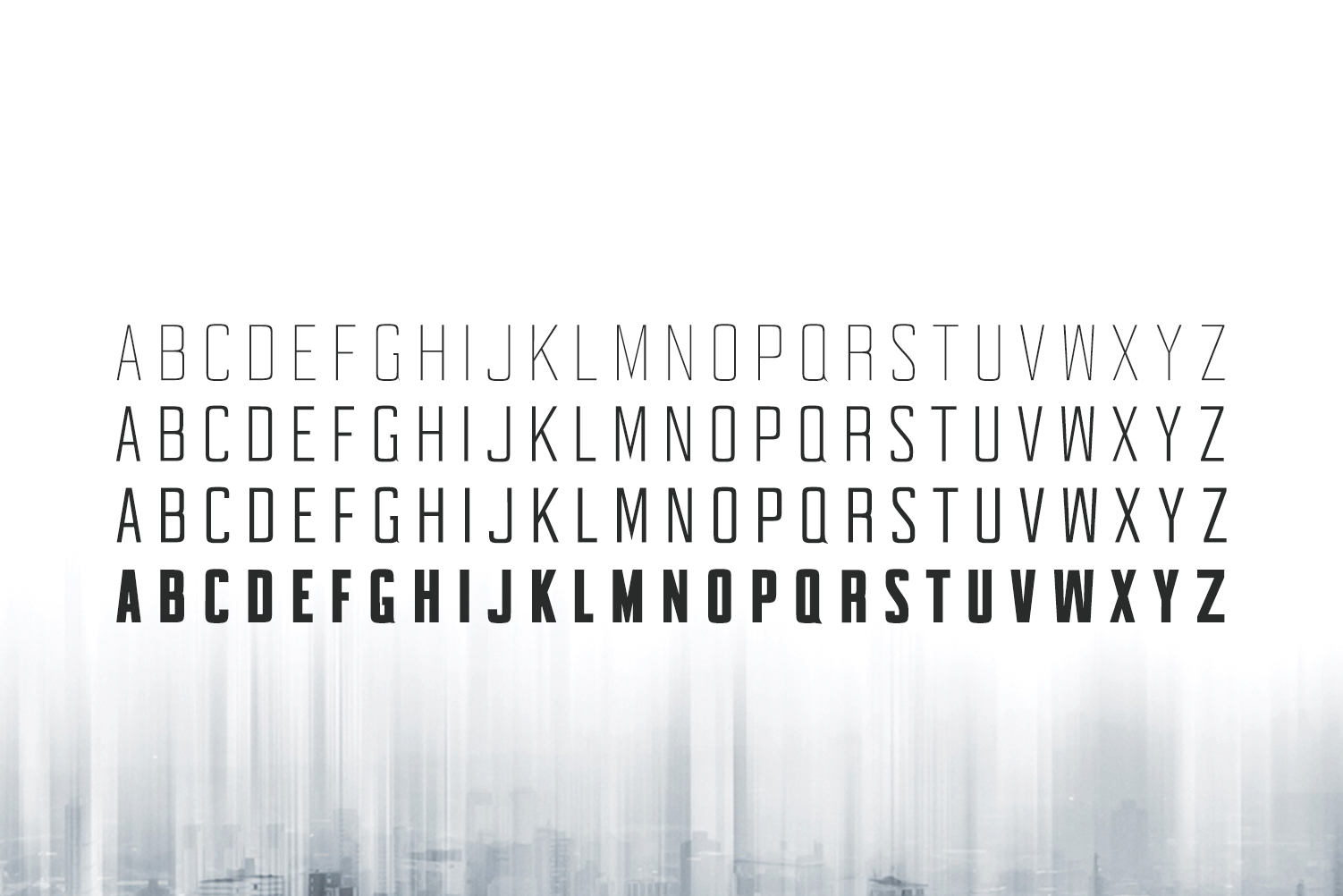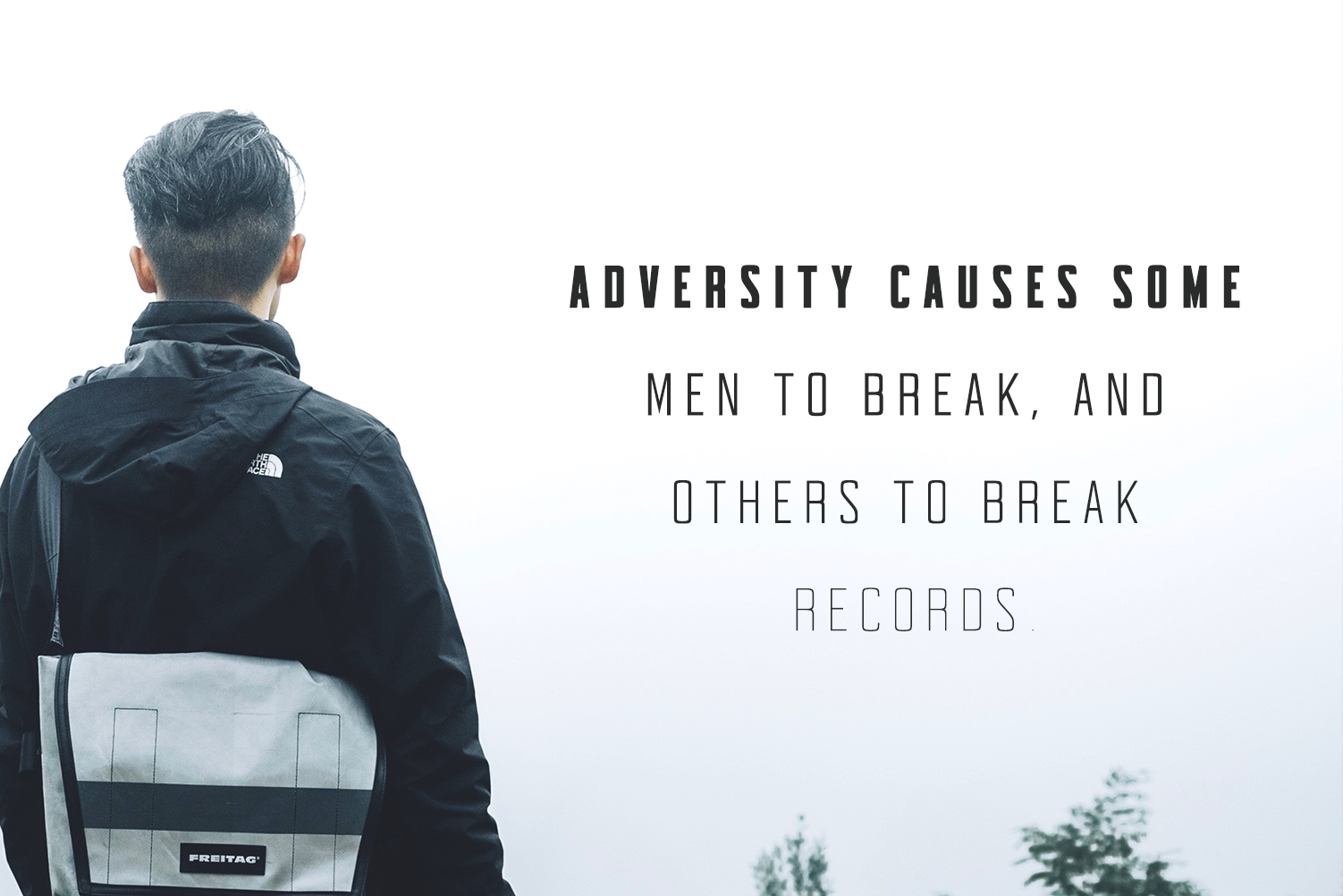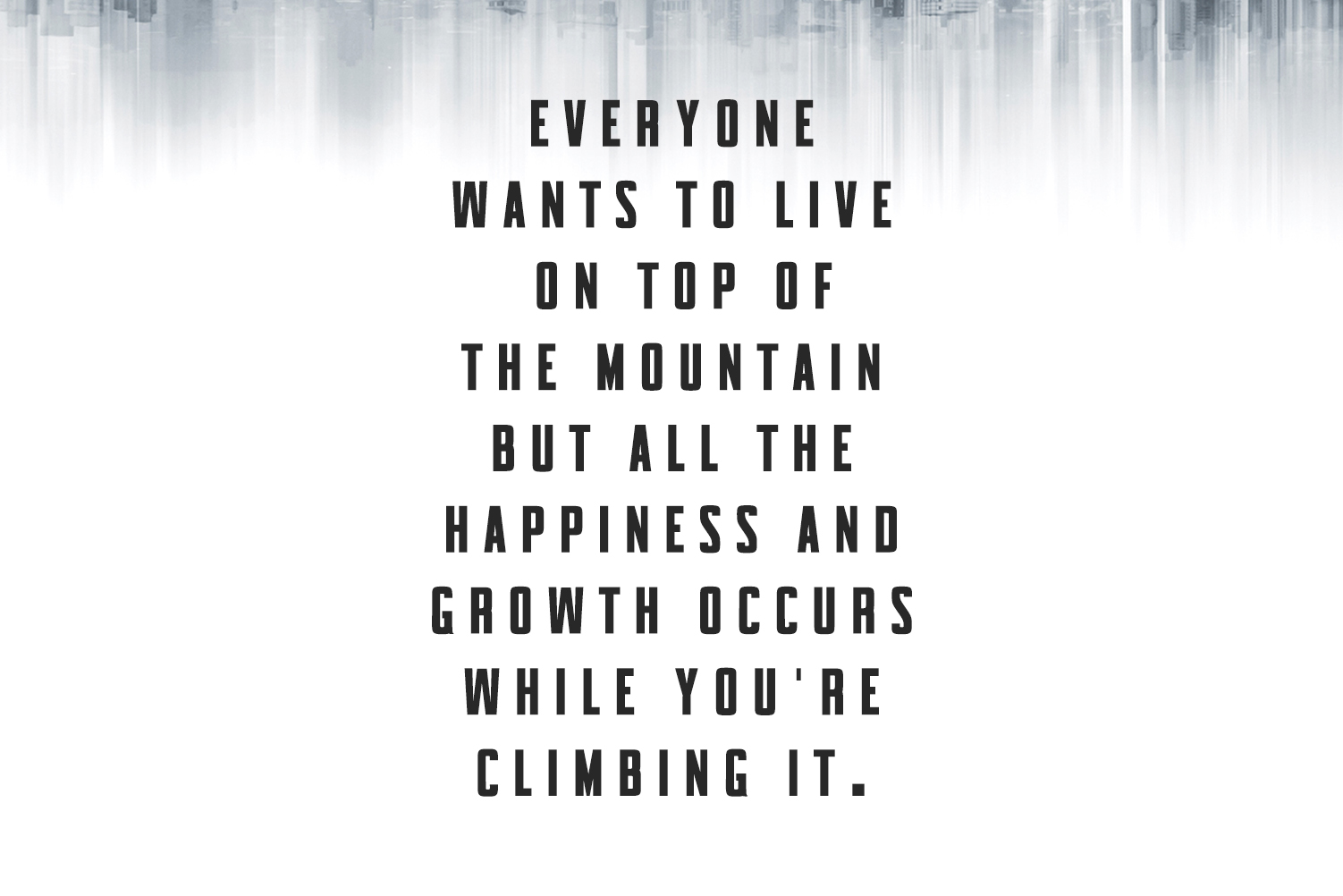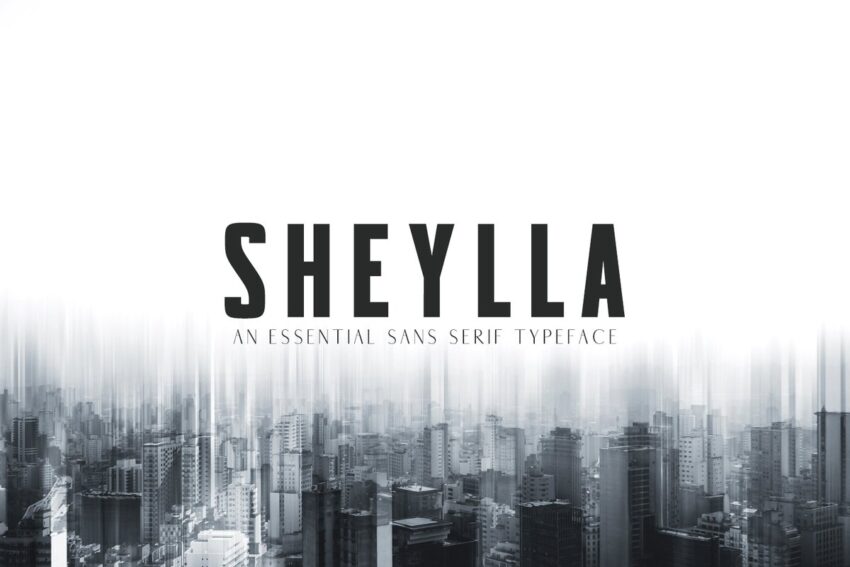
Introduction to Sheylla Font
Sheylla Sans Serif Typeface is a clean and simple geometric font in 4 weights.
This minimal sans serif is ideal for a wide range of projects and designs given its versatility and modernity .
Why Choose Sheylla Font?
Sheylla Font offers exceptional quality and versatility, making it a valuable addition to your design toolkit. Whether you’re creating for personal projects or commercial use, Sheylla Font delivers professional results.